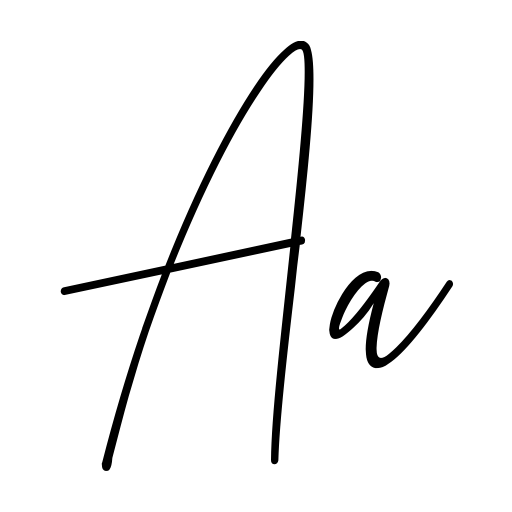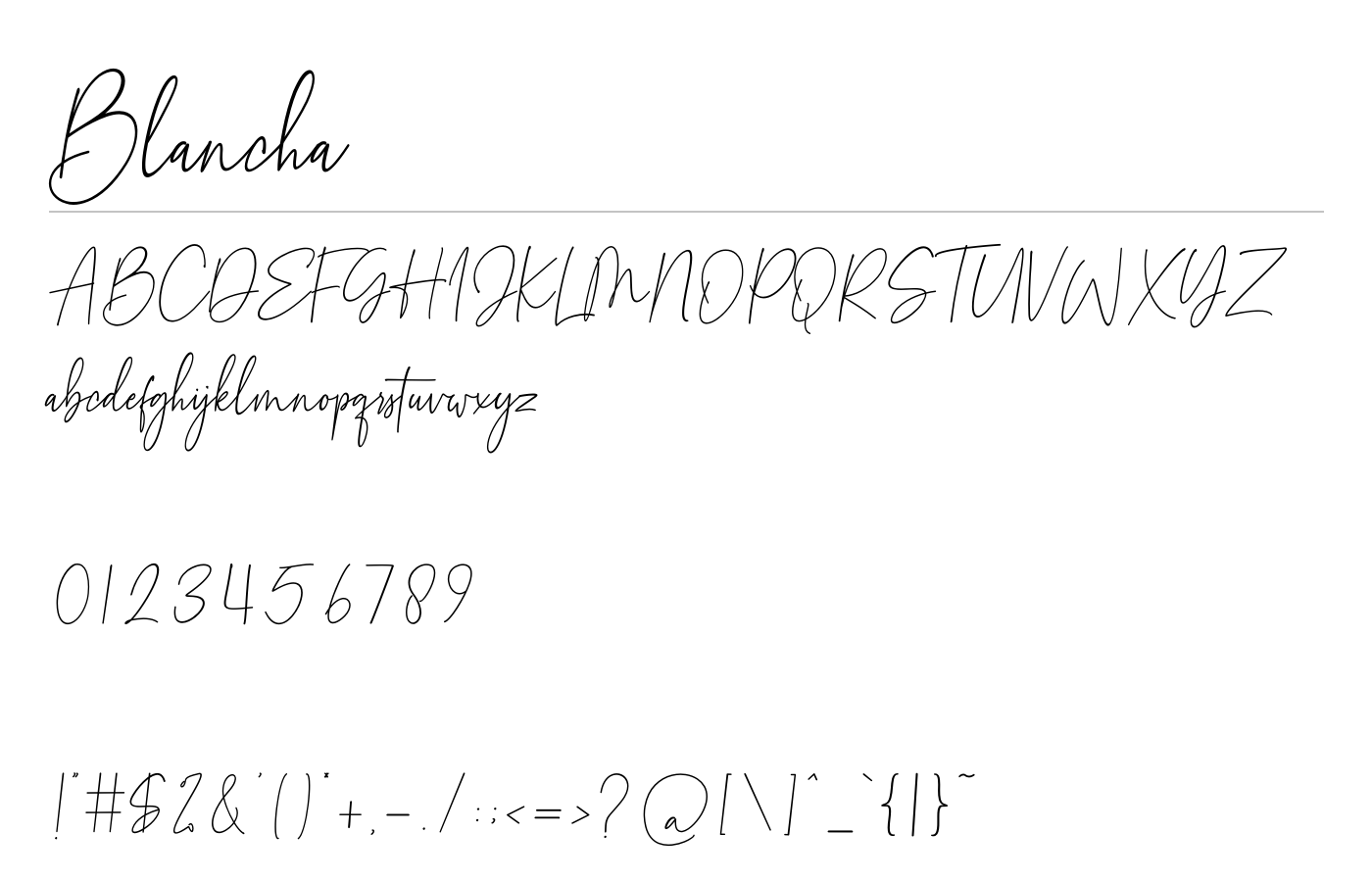
Blancha is a delicate and elegant handwritten script font with a light and airy feel, featuring slender, flowing strokes and a casual yet refined style. Its tall x-height and varied letterforms create a natural, personal touch that works beautifully for sophisticated branding, invitations, and creative projects needing a charming, approachable look. This font shines best in headlines, logos, and decorative text where its graceful character can truly stand out.
Blancha Font
About Blancha Font